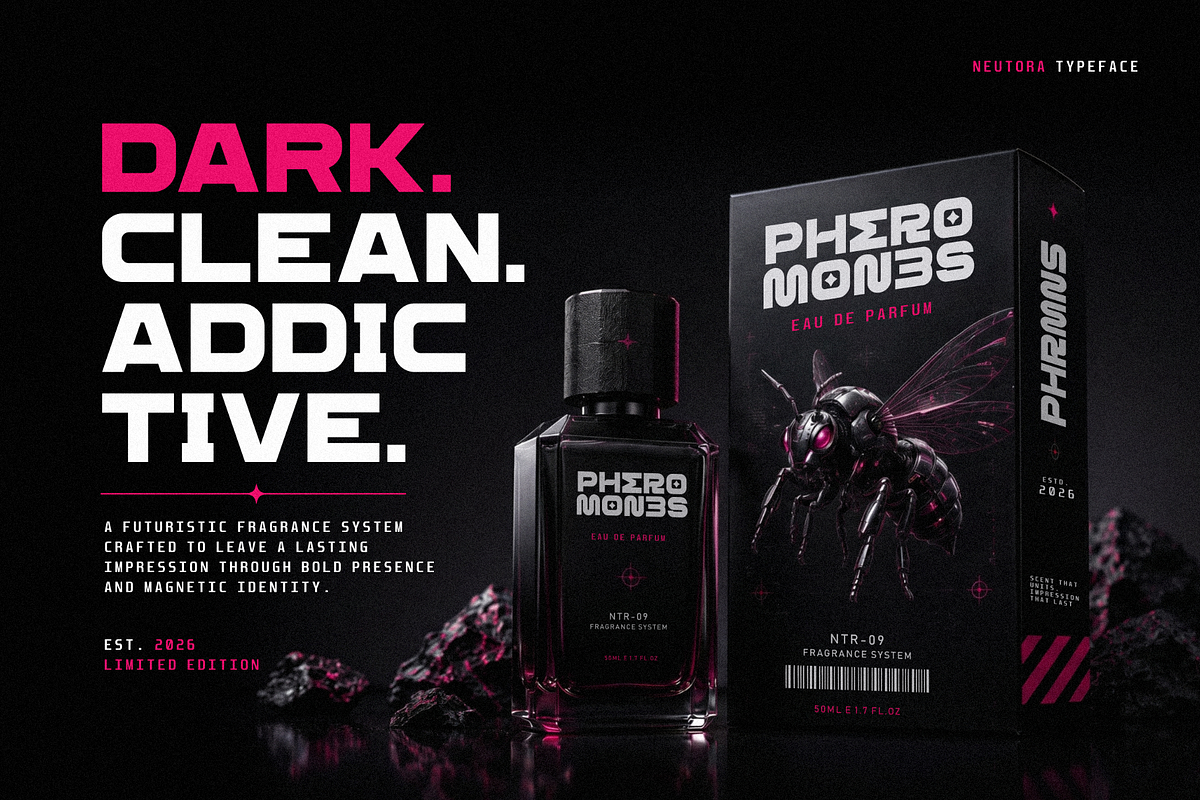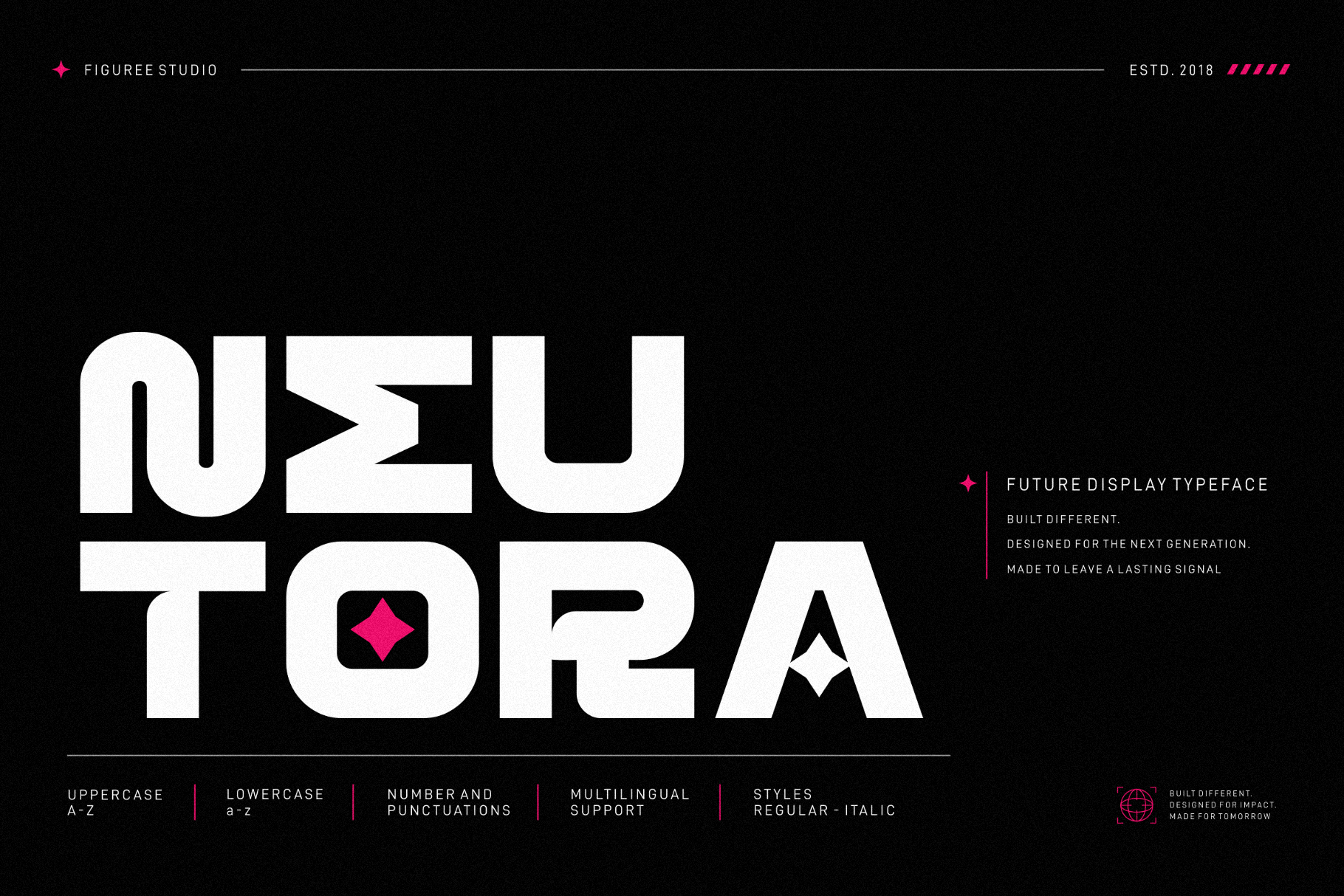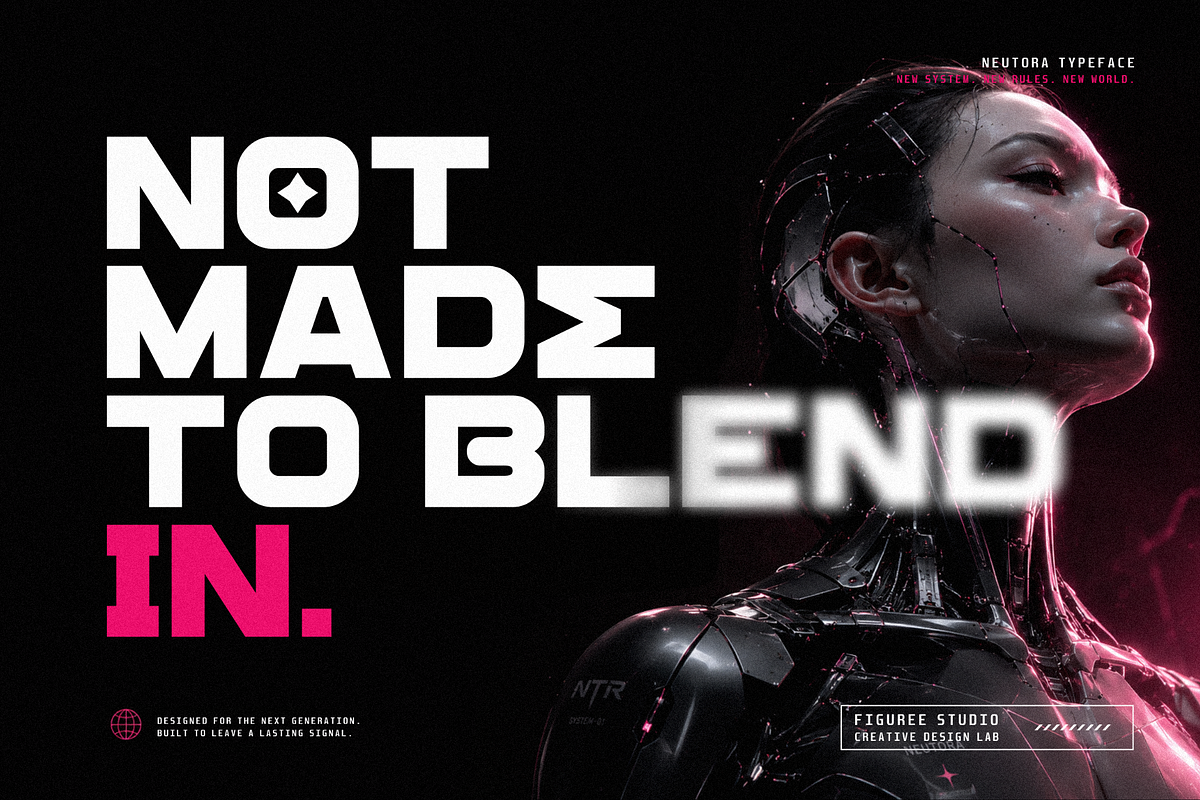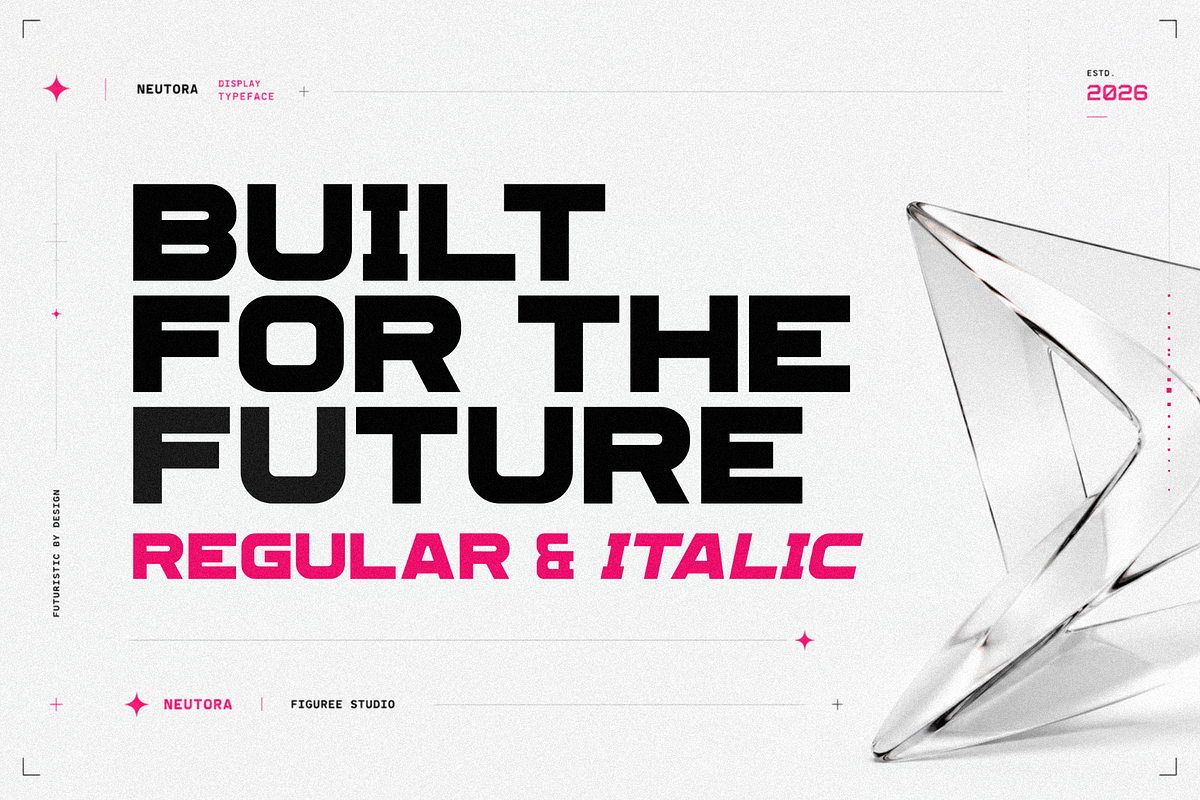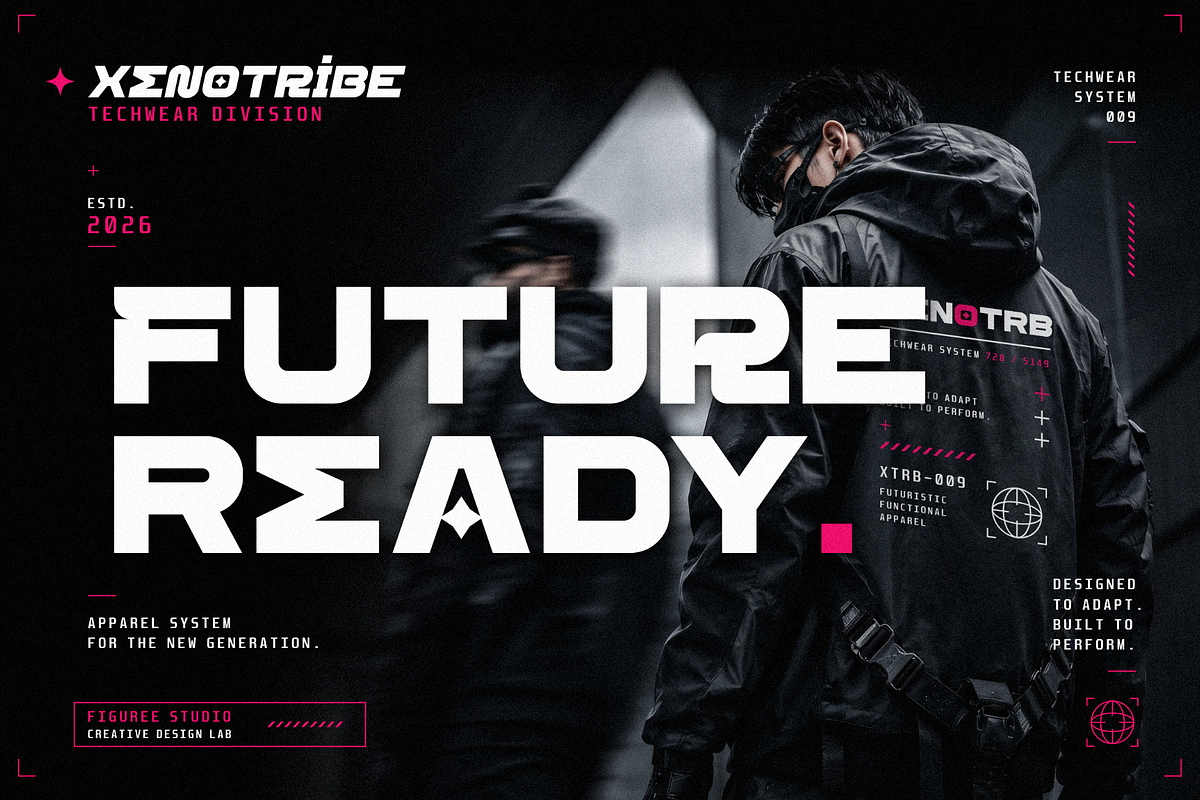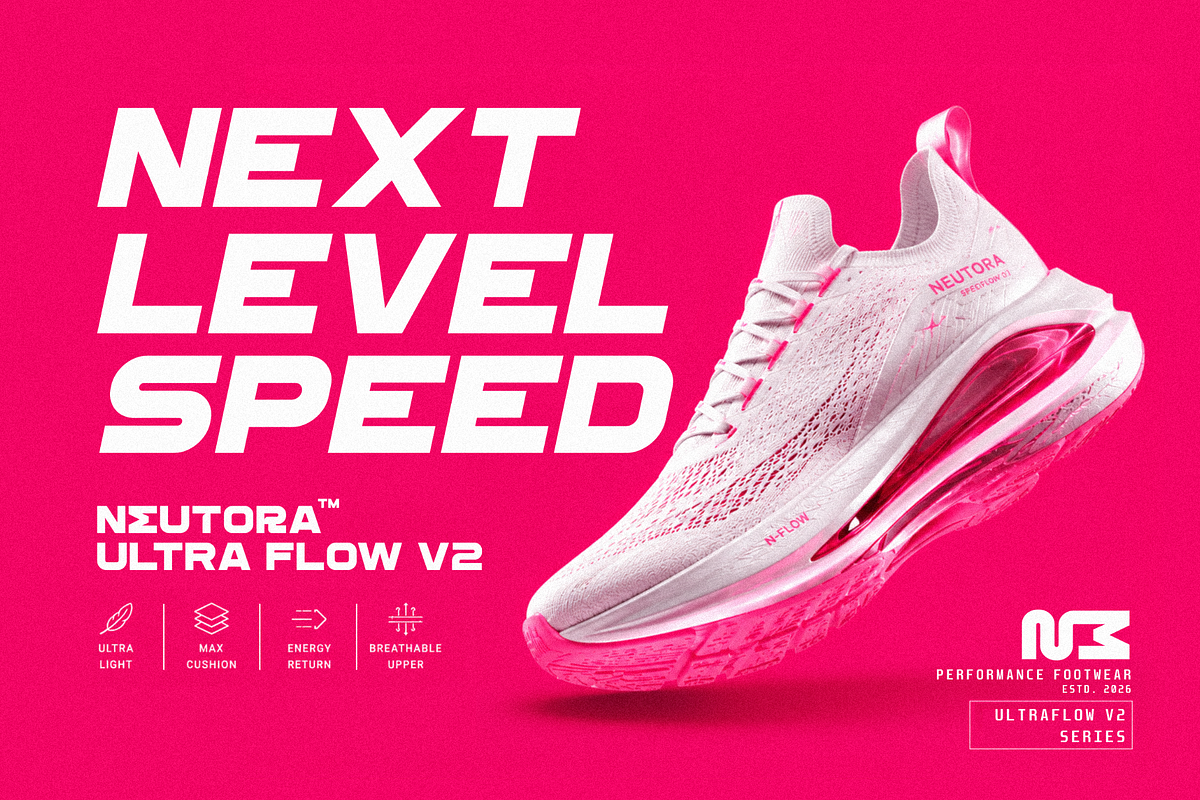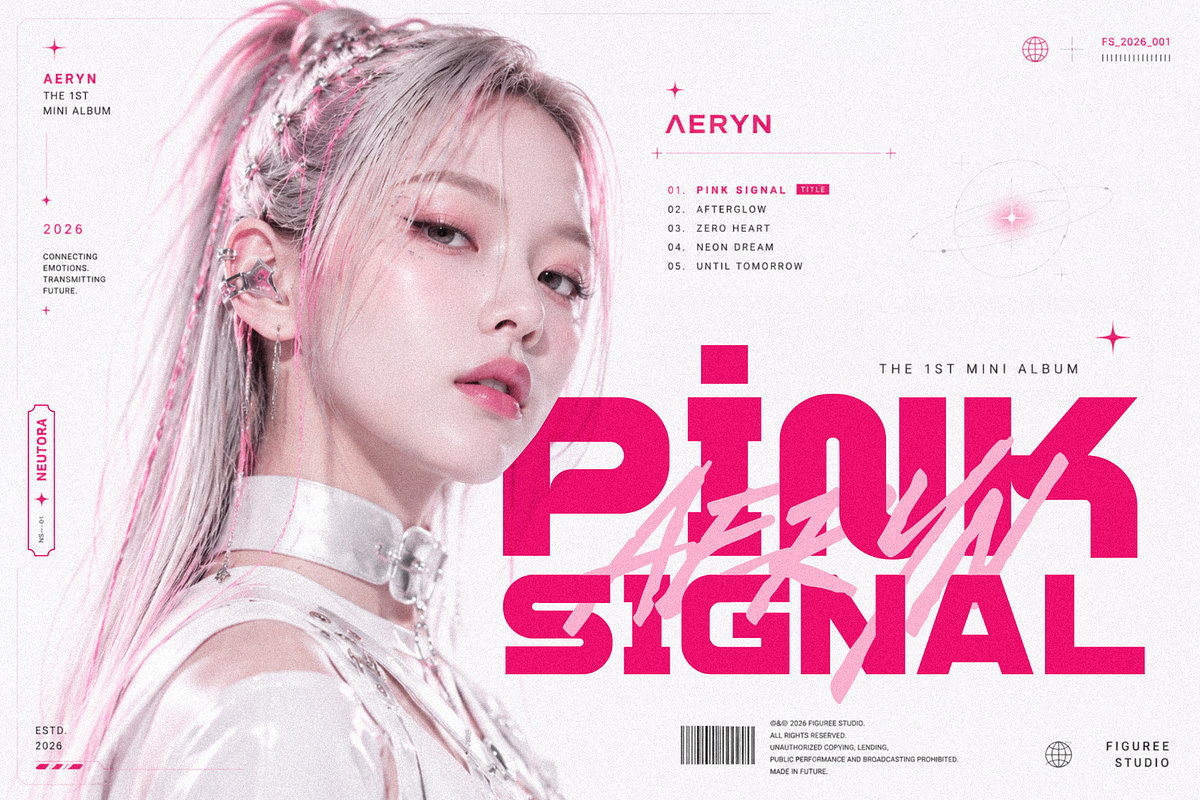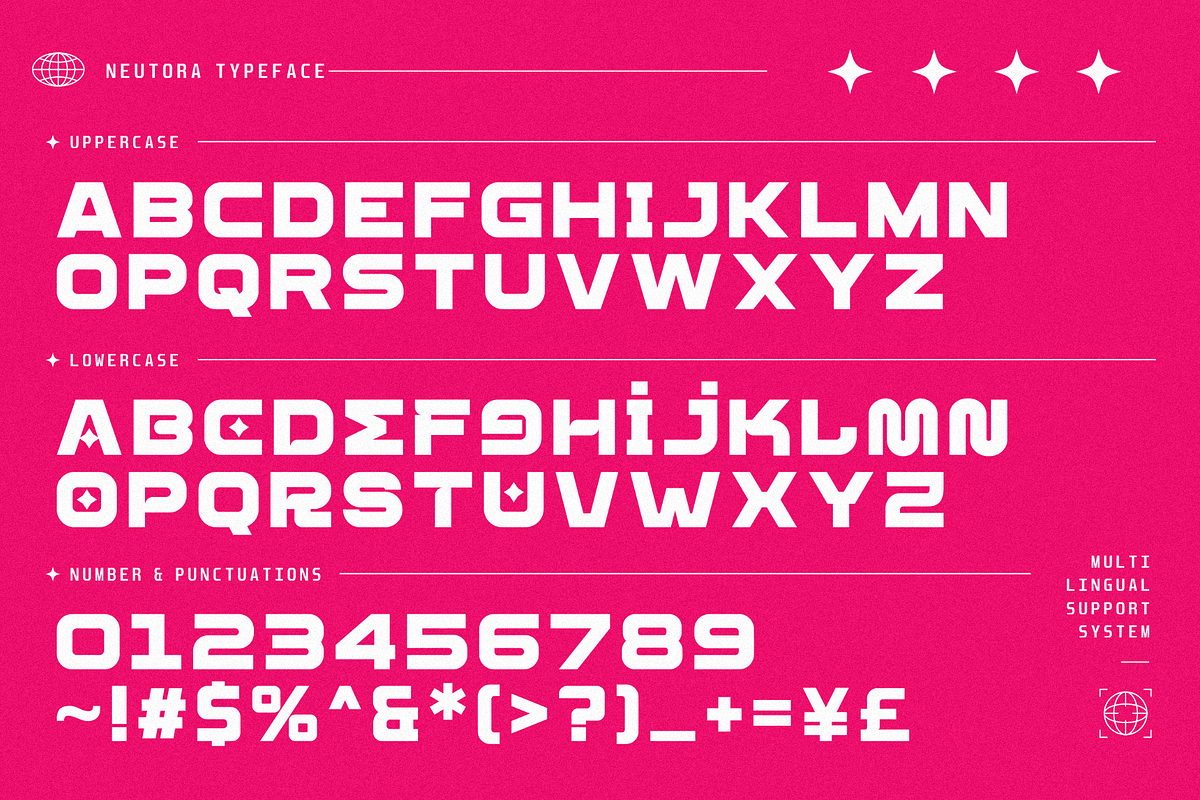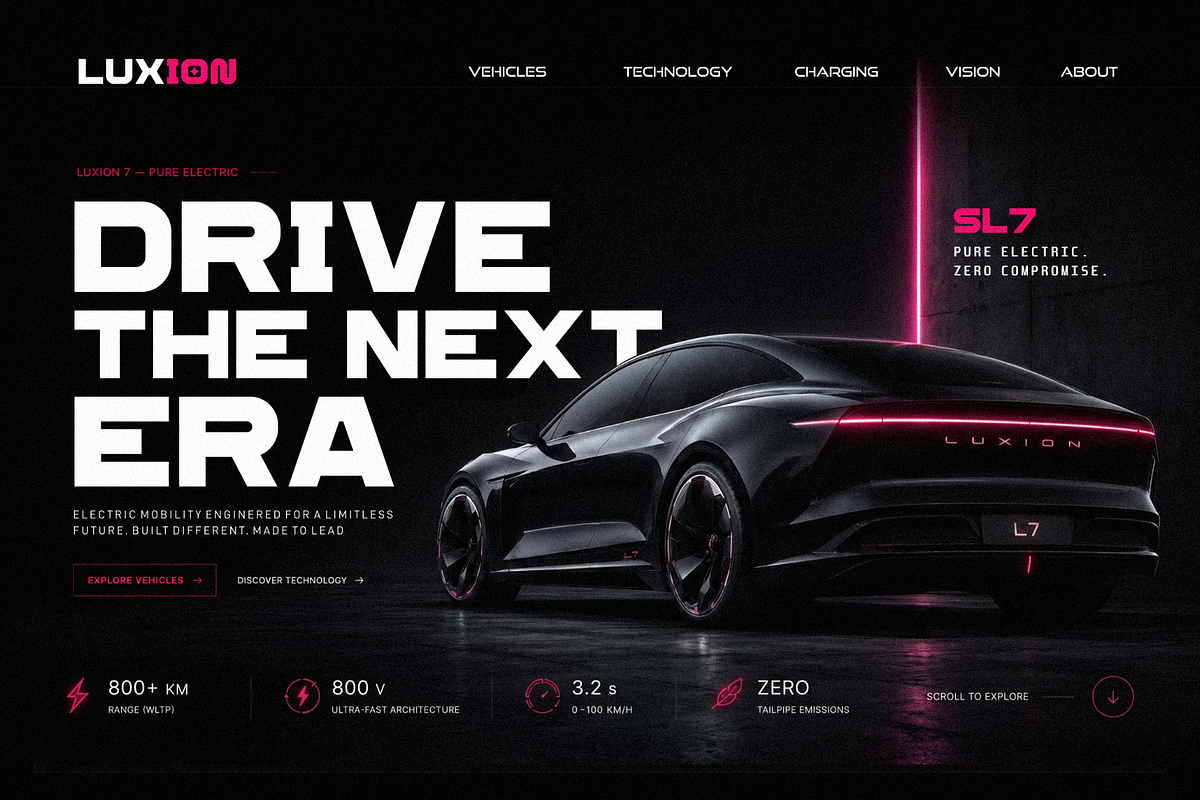
Neutora – Bold Futuristic Font
Step into the future of typography with Neutora – Bold Futuristic Font, a modern typeface designed for projects that demand strong visual impact and clean futuristic styling. With sharp geometric forms, dynamic letter construction, and powerful readability, Neutora is built for creators working on technology visuals, gaming graphics, sci-fi themes, digital interfaces, posters, and modern branding projects.
Neutora combines bold structure with a sleek, futuristic appearance, making it suitable for titles, headlines, presentations, thumbnails, UI graphics, promotional materials, and cinematic typography. Its carefully crafted letterforms create a sense of motion and innovation while maintaining clarity across both large and medium-sized layouts.
This font package includes both Regular and Italic versions, allowing designers to create stronger visual hierarchy and more flexible compositions. Whether you need a solid futuristic headline or a dynamic italic accent for motion-driven layouts, Neutora gives you the tools to build modern visual experiences.
Uppercase & Lowercase Characters
Support Multilingual for wider language coverage
Bold Futuristic Style for modern digital projects
Regular & Italic Versions Included
Clean Geometric Letterforms with strong readability
Perfect for Headlines, Posters, Gaming, and Technology Graphics
Why Designers Love It
Designers choose Neutora because it delivers a futuristic appearance without sacrificing readability. The bold construction helps text remain clear in large display settings, while the geometric styling adds a modern digital atmosphere to compositions.
The italic version adds flexibility for motion-inspired layouts, sci-fi concepts, esports visuals, interface titles, and promotional graphics. Its structure works well in both minimal and high-energy compositions, making it adaptable across different creative directions.
Neutora is also useful for multilingual projects thanks to its extended character support. This allows creators to maintain a consistent futuristic identity across multiple languages and international audiences.
The balanced spacing and strong character shapes make the font effective for thumbnails, cinematic titles, streaming graphics, technology presentations, and digital advertisements where visibility and impact are important.
If you need a bold, futuristic font designed for technology visuals, gaming graphics, sci-fi themes, and modern digital layouts, Neutora delivers a strong and clean typographic presence. Its geometric structure, bold styling, and italic variation make it a versatile tool for creators building futuristic visual experiences across print and digital media.